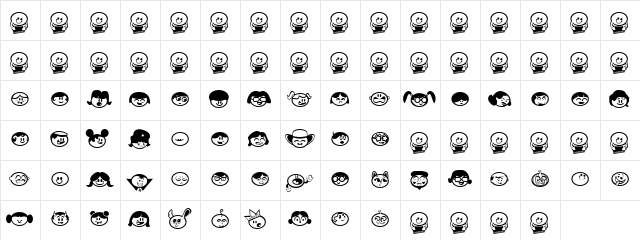
Ammu Regular
Design Context for Ammu Typeface
Ammu is a composed and adaptable typeface that performs quietly and consistently across a wide range of design contexts.